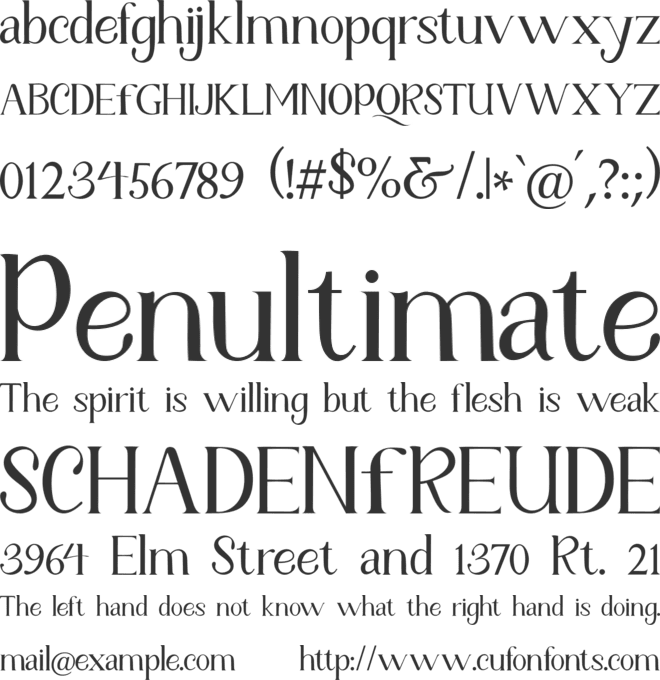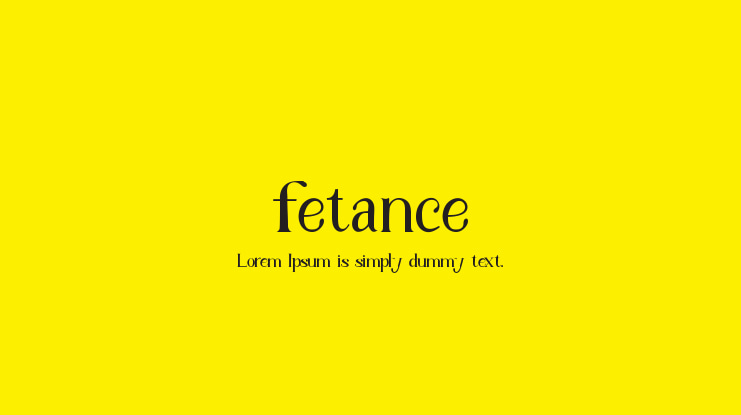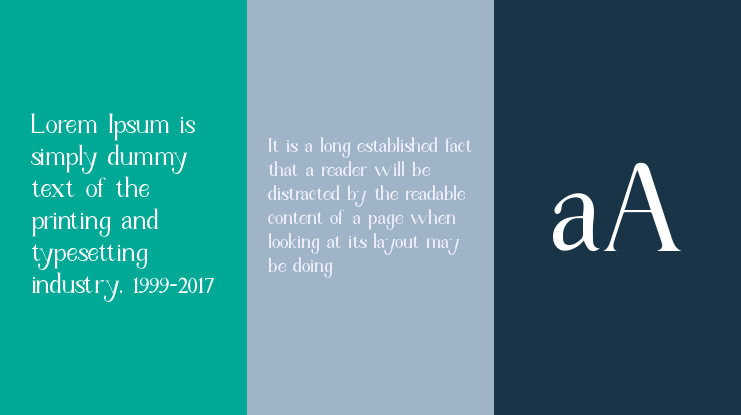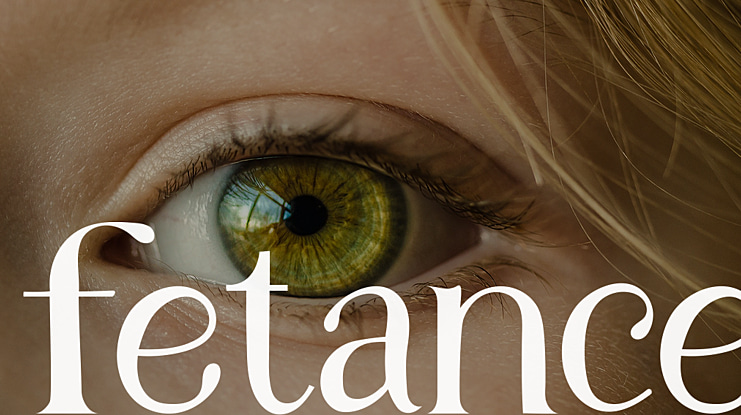
Fetance Font
Fetance is a great type of font for creating beautiful and elegant headlines and logo designs. It works well with large sizes. Uppercase and Lowercase Features. It also works very well with large distances.